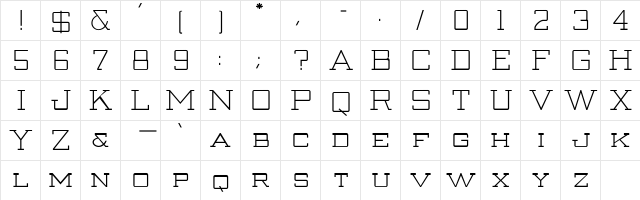
Strongman Regular
Design Context for Strongman Typeface
Strongman offers clean, dependable letterforms without strong stylistic allegiance, making it a practical choice for designers who need flexibility.